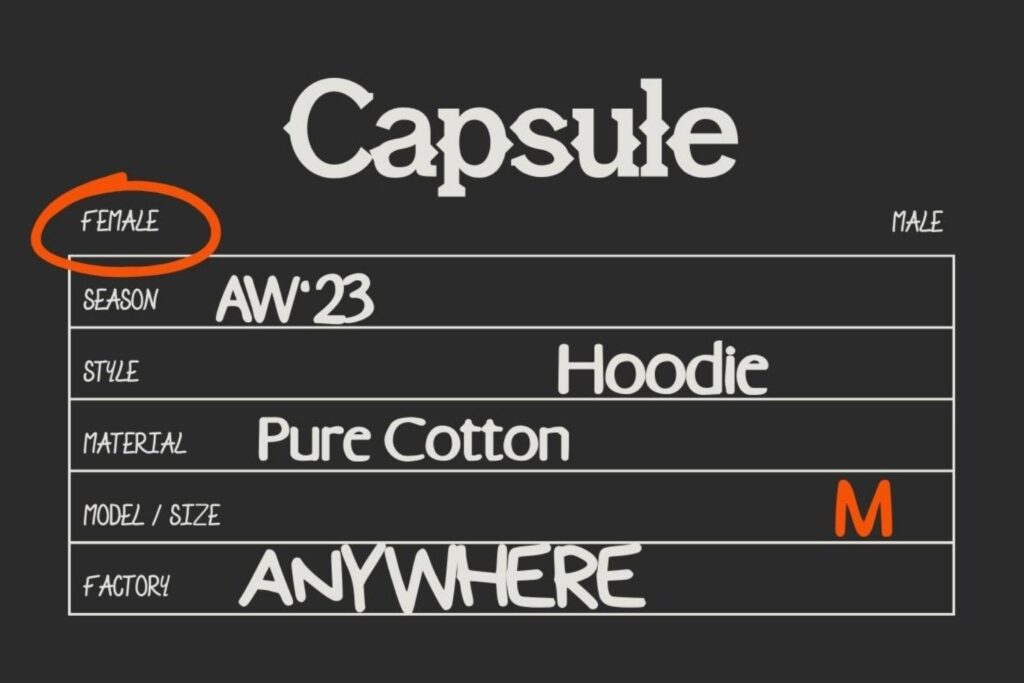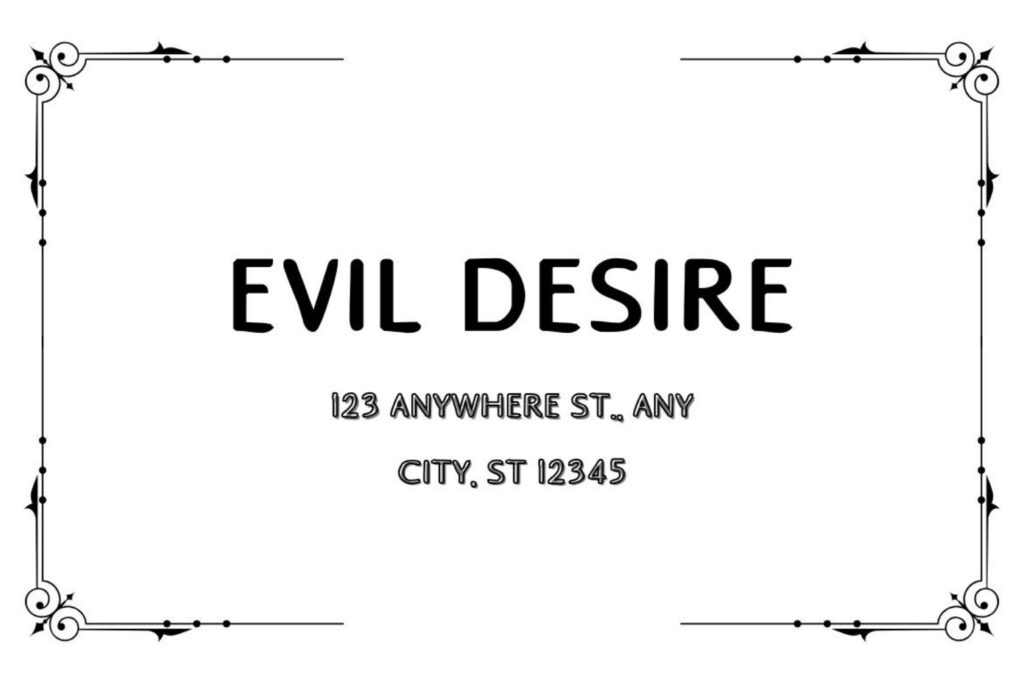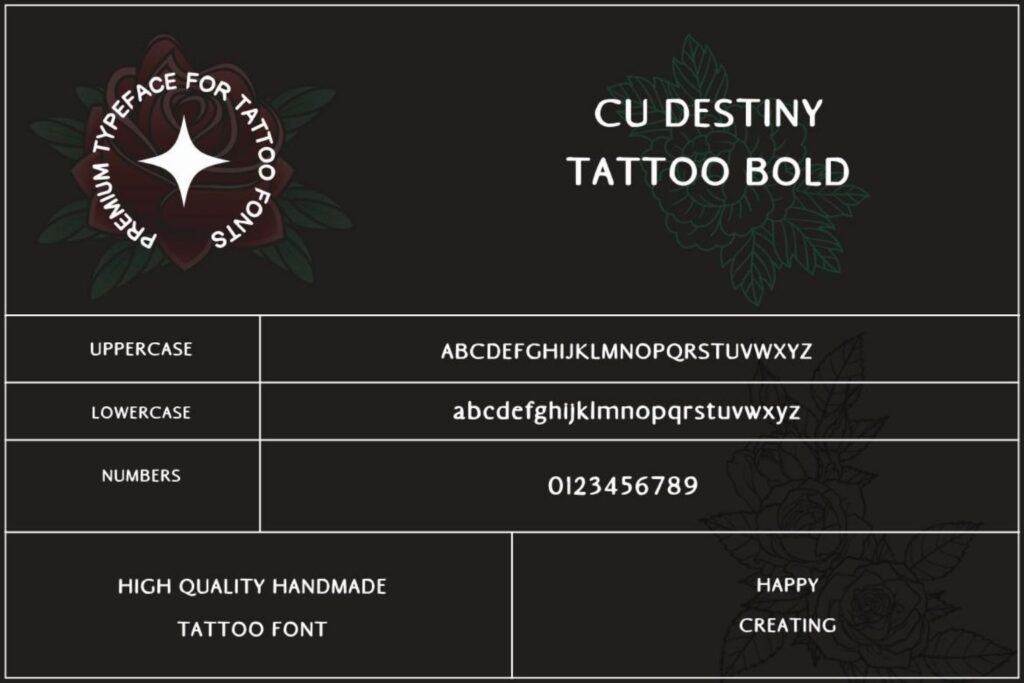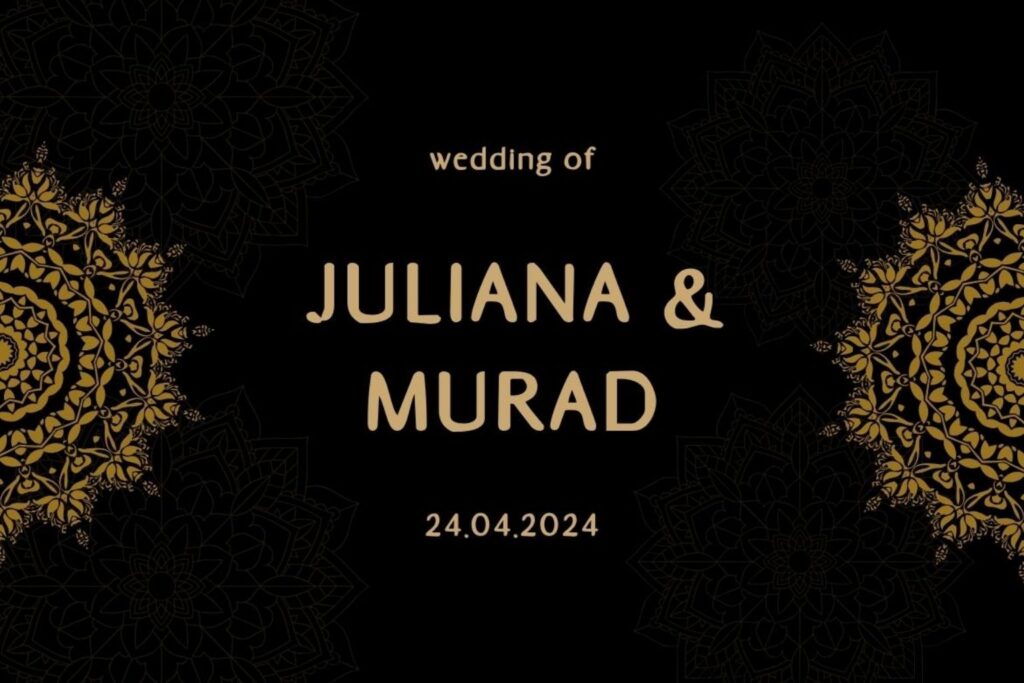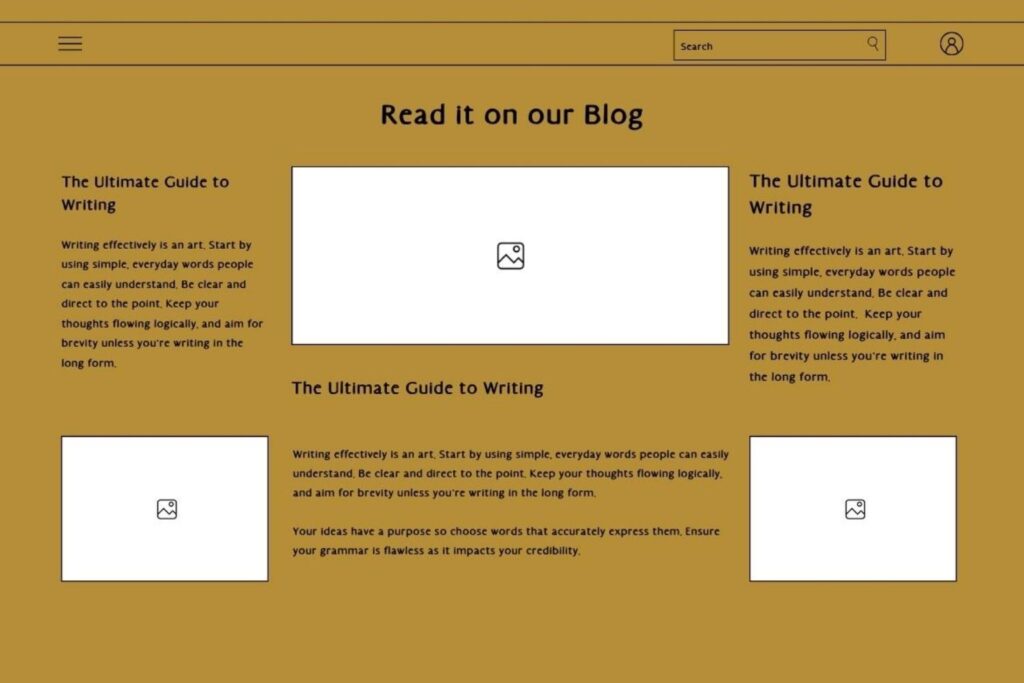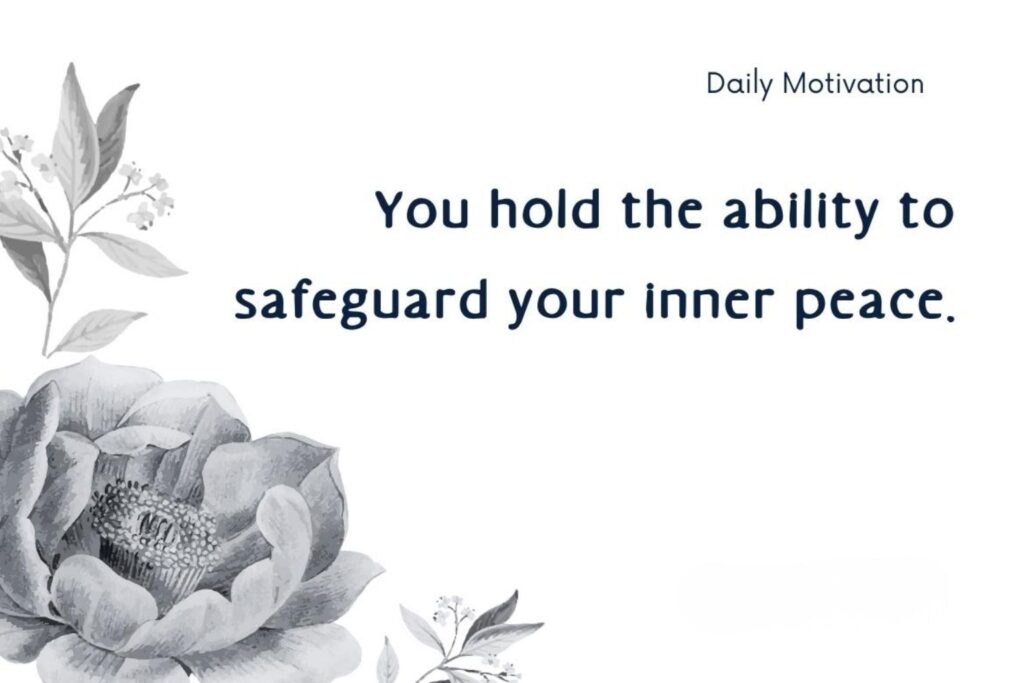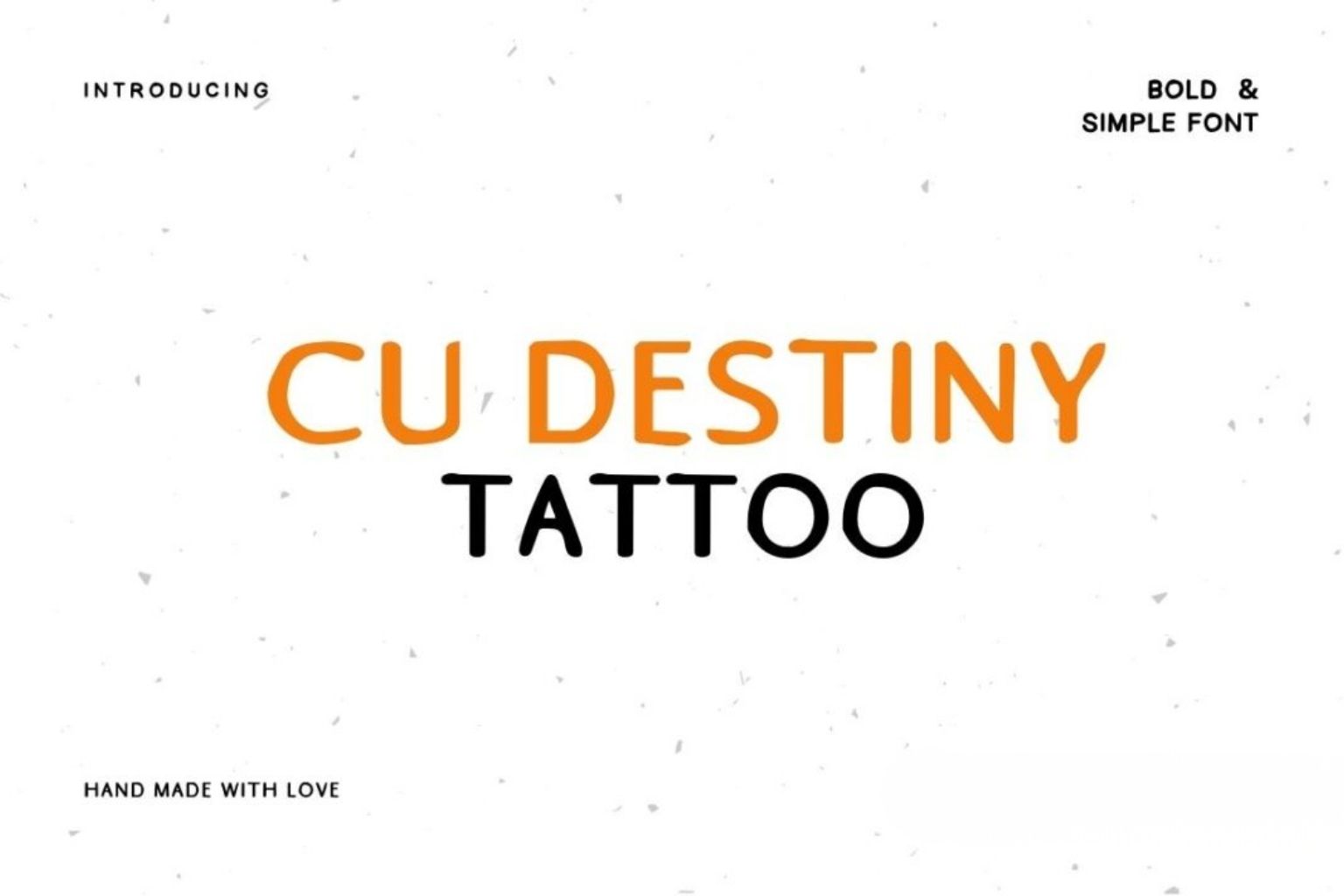
CU Destiny Tattoo Font
CU Destiny Tattoo Font is a bold and dynamic typeface perfect for making a statement. Its eye-catching design is ideal for tattoo designs and tattoo products like posters, banners, labels, and more. The font includes uppercase letters and numbers, allowing for versatile usage across different projects.
Font Features:
- Uppercase Letters: All-caps design that stands out and grabs attention.
- Numbers: Complete set of numerals to complement your text.
- Bold and Clear: Perfect for headlines, titles, and any text that needs to be noticed.
- Versatile Usage: Ideal for posters, product labels, advertisements, and more.